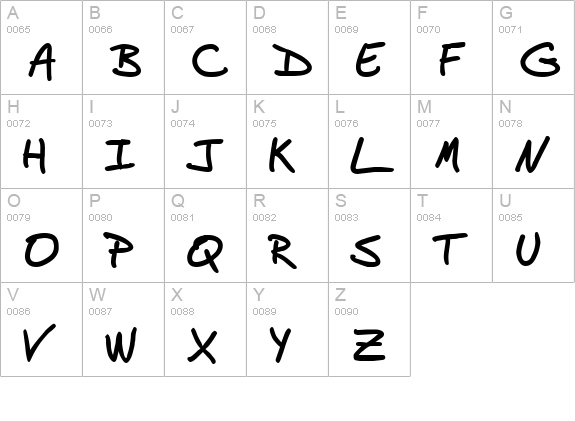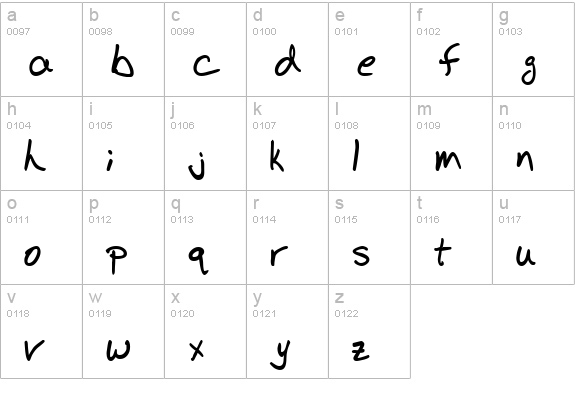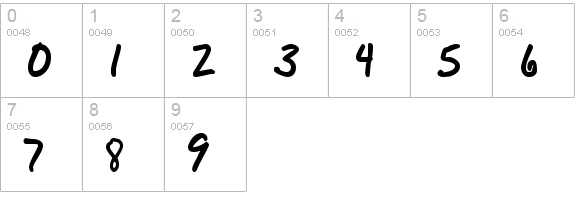
BudHand Bold is a strong, high-contrast variant in the BudHand typeface family \xE2\x80\x94 well suited to headlines, attention-grabbing titles, and strong calls-to-action.
BudHand Bold is a bold and eye-catching font that exudes confidence and modernity. With its strong and thick strokes, this font is perfect for making a statement in any design project. Whether you're creating posters, logos, or branding materials, BudHand Bold will surely grab attention and leave a lasting impression. What's even better is that BudHand Bold is available for free download at FontsMarket.com. Yes, you read that right - you can get your hands on this stunning font without spending a dime. So why wait? Add BudHand Bold to your font collection today and elevate your designs to the next level.